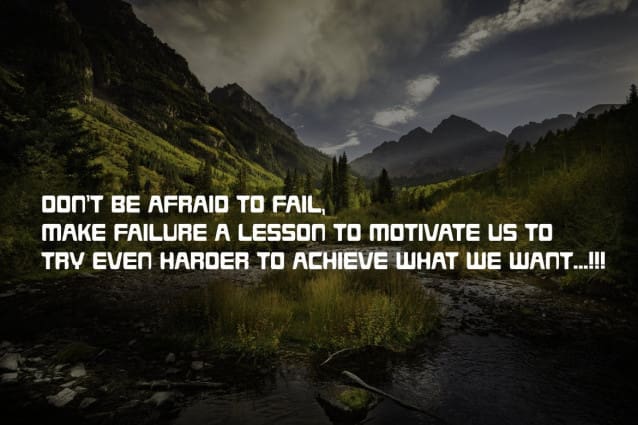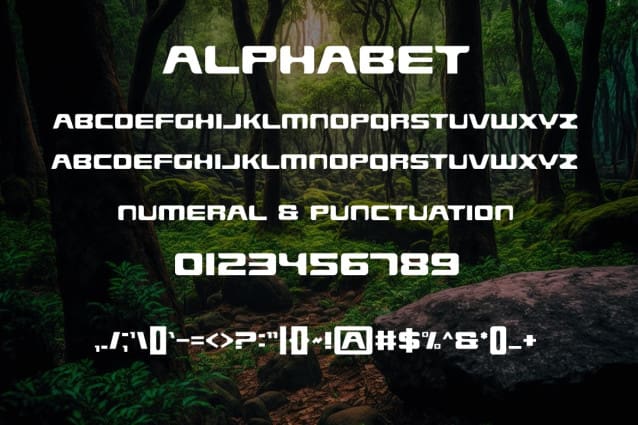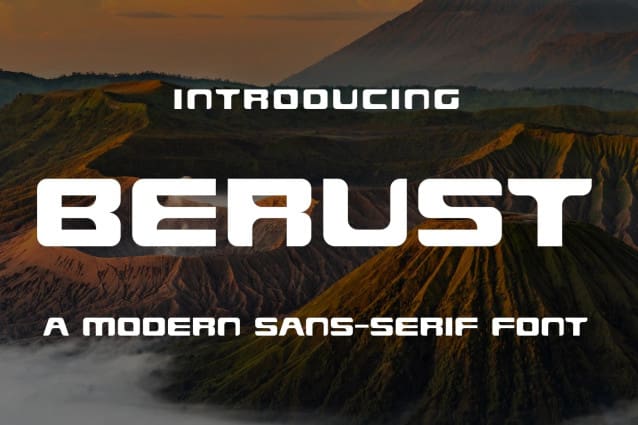
Berust Font
Berust Font is a modern and authentic font. Perfect for both professional and branding needs of a product. This font is suitable for any branding project like quotes, logo, blog header, poster, banding, letter, invitation, stationery, etc… Designed as a versatile and flexible that can be used on a range of projects and mediums. outstanding in a wide range of contexts.